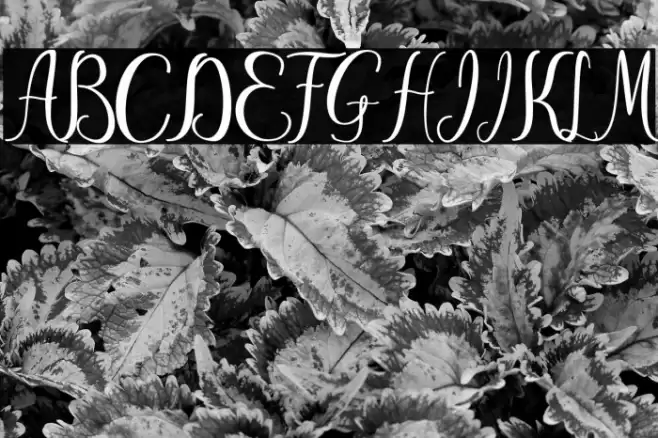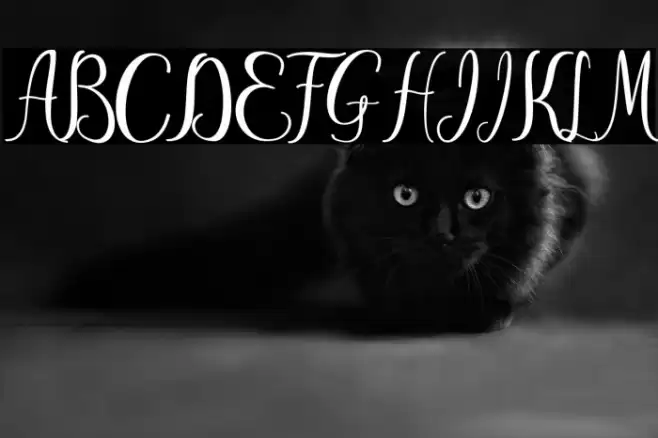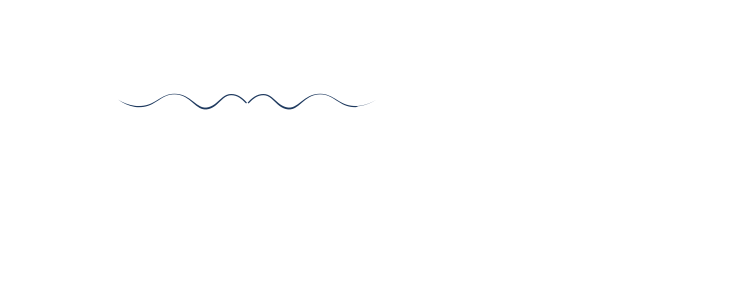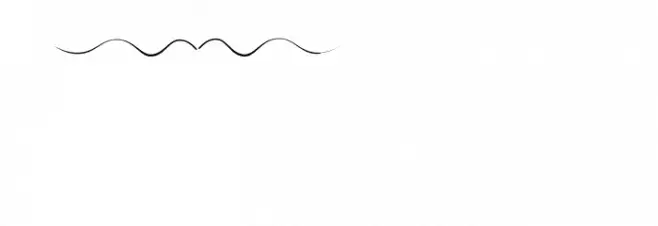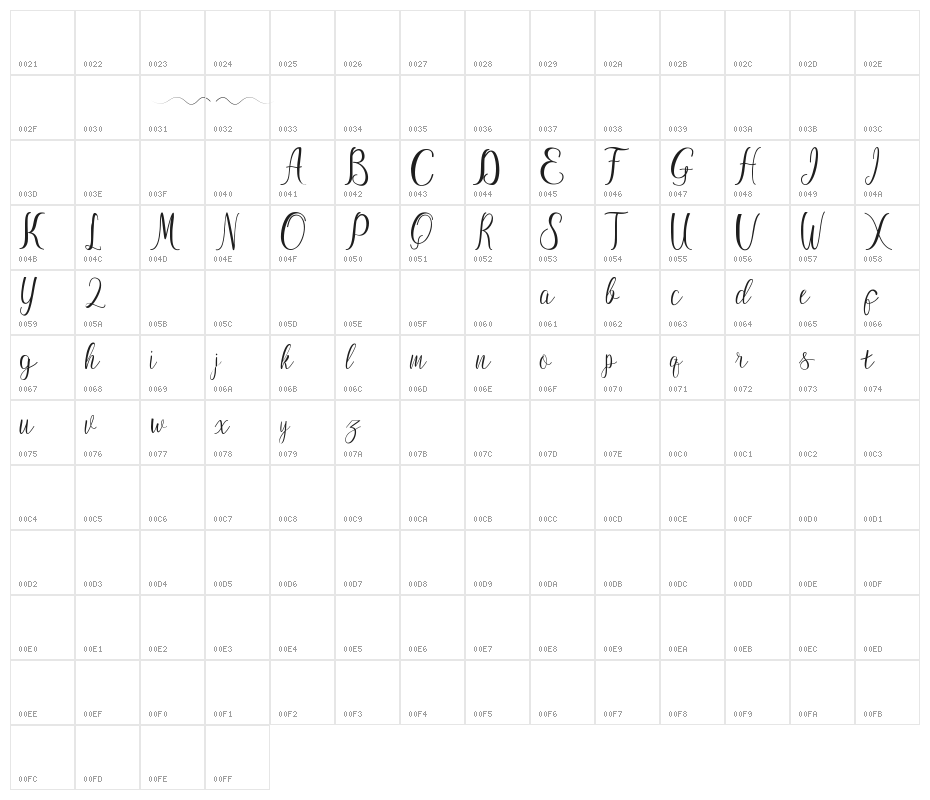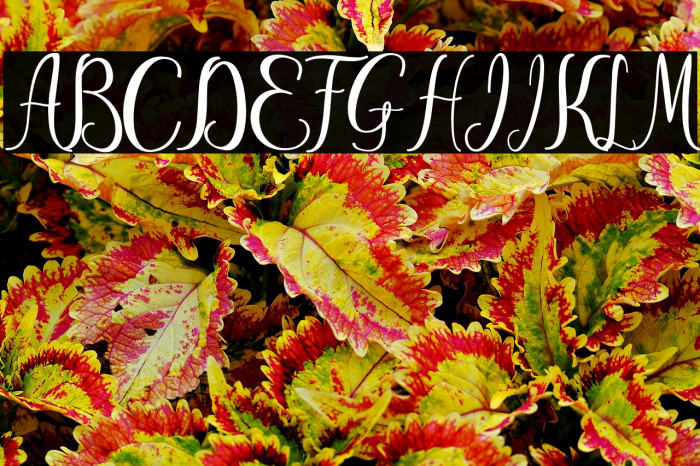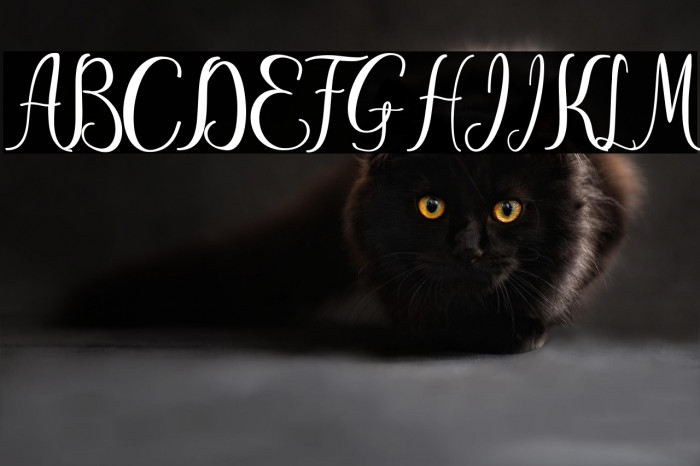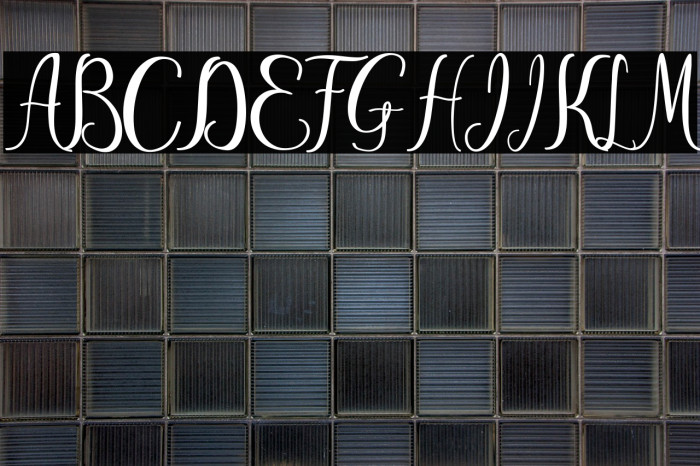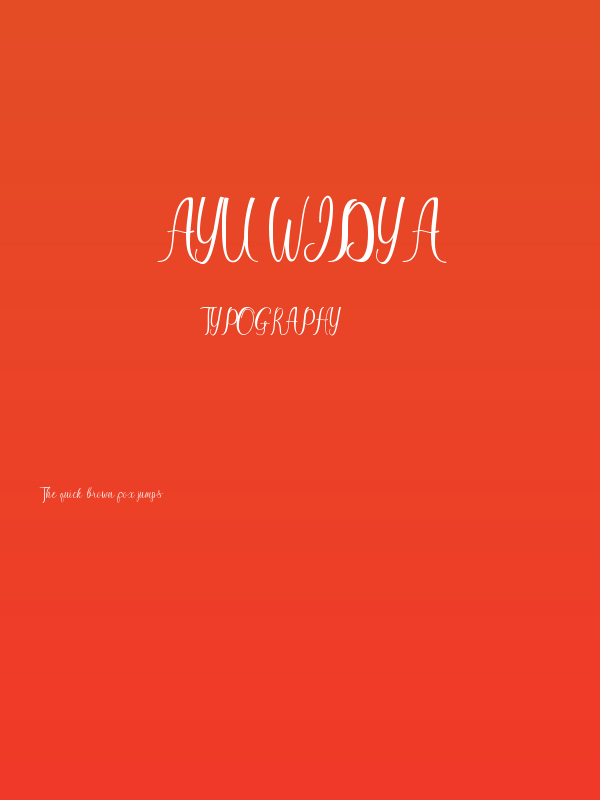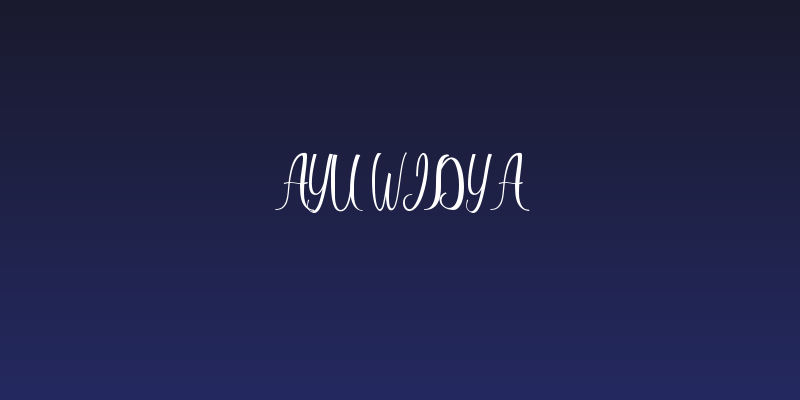
ayu widya Font
ayu widya Description
This elegant script font features a flowing, cursive style with a modern twist. The uppercase letters are characterized by their tall, slender forms and graceful curves, while the lowercase letters maintain a consistent, fluid motion. The font exhibits a playful yet sophisticated aesthetic, with varying stroke widths that add a dynamic quality to the text. The overall design is both decorative and legible, making it suitable for a variety of creative applications. The font's unique flair is evident in its swashes and loops, which enhance its visual appeal.
A modern, elegant script font with flowing, cursive strokes and dynamic contrast from Uncategorized fonts.
- Font: ayu widya
- Proposed Projects: Ideal for wedding invitations, branding, greeting cards, and elegant packaging designs.
- Overall Style: Modern, Decorative
- Use Case: Logos, Headlines, Invitations